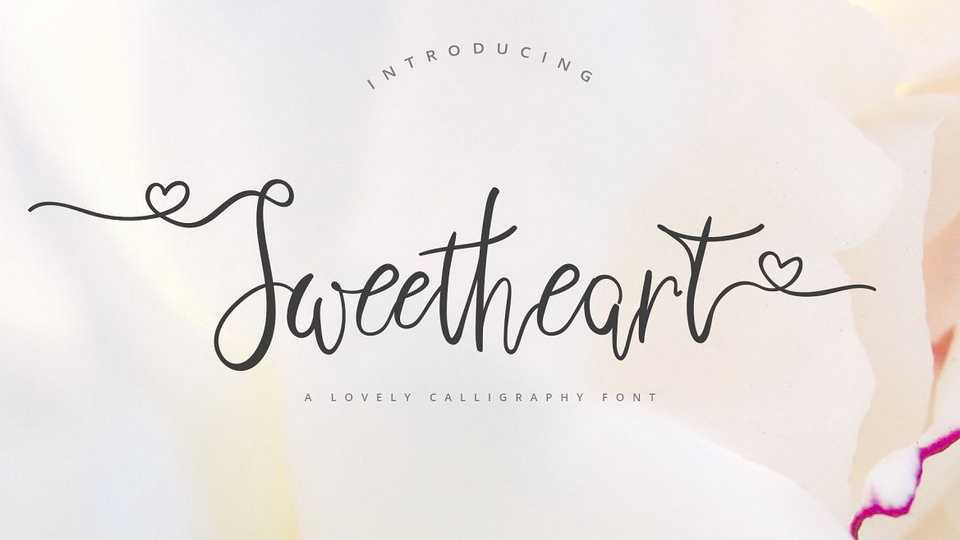
Download Sweetheart font – a calligraphy script with sophisticated flows. It is full of hearts and glyphs. Sweetheart Calligraphy containing upper & lowercase characters, full set of punctuation and numerals, with opentype features with stylistic alternates and ligatures.
Designer: Masdika Studio